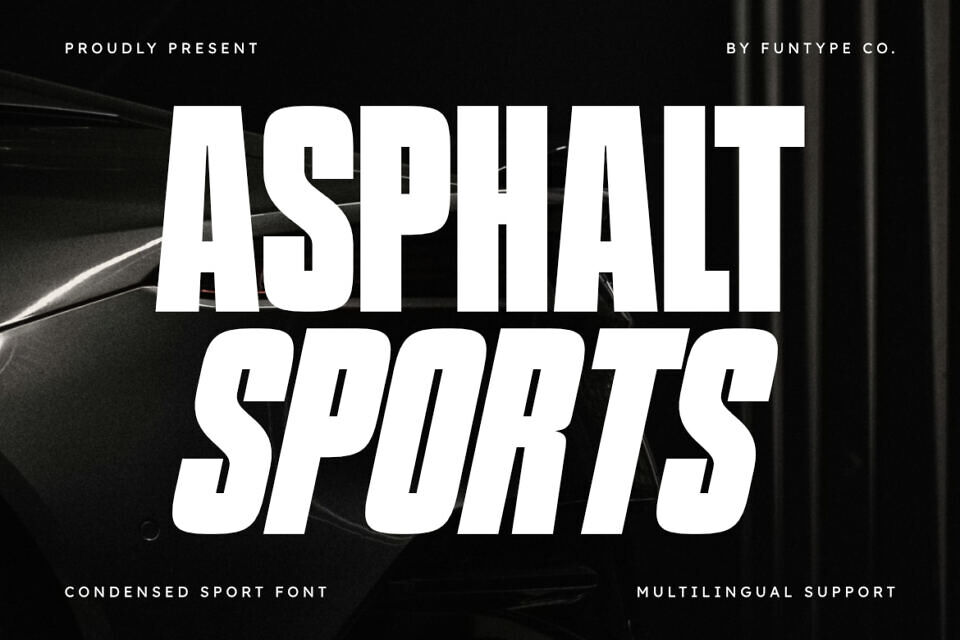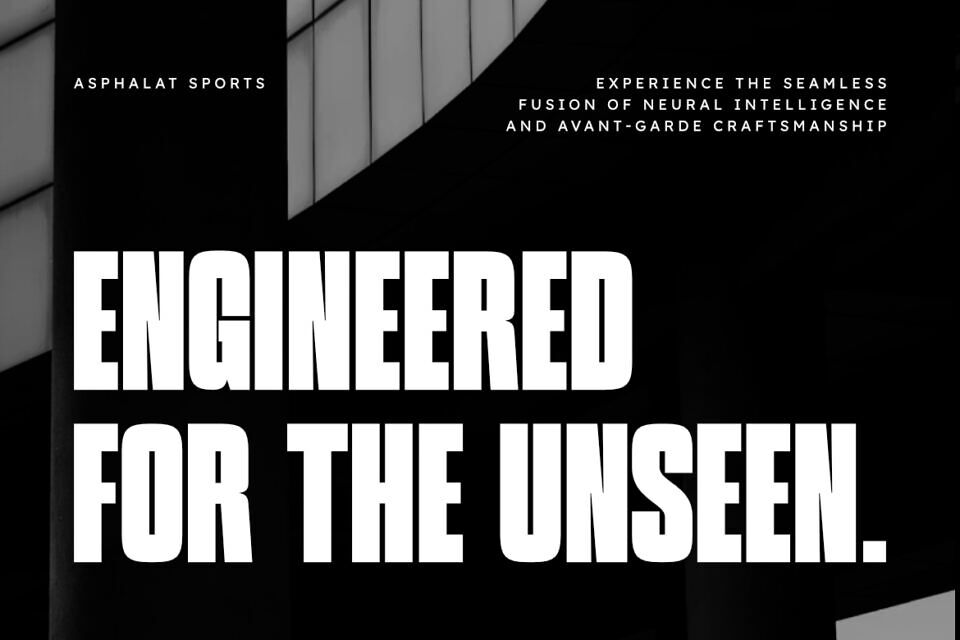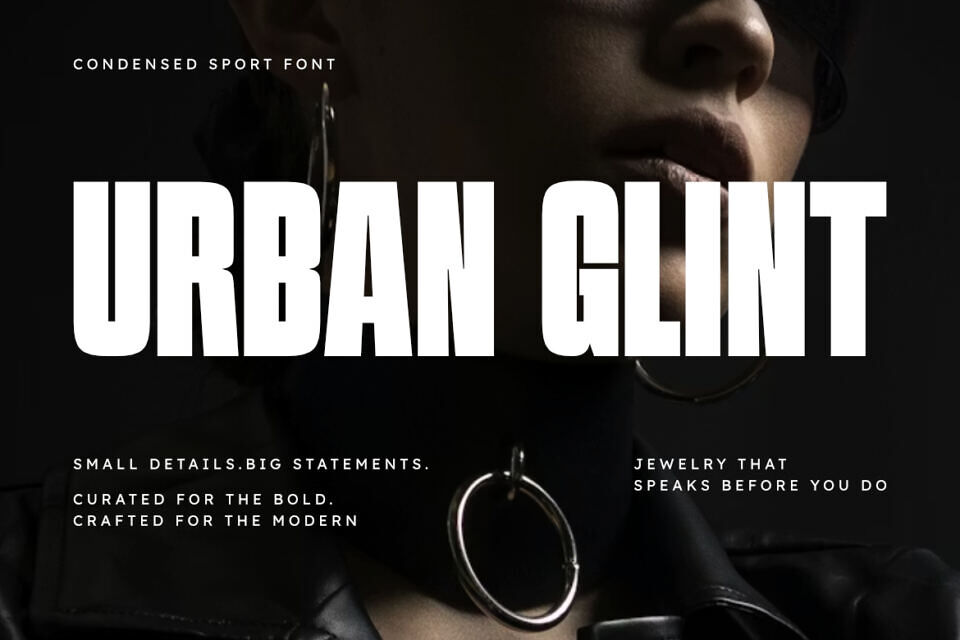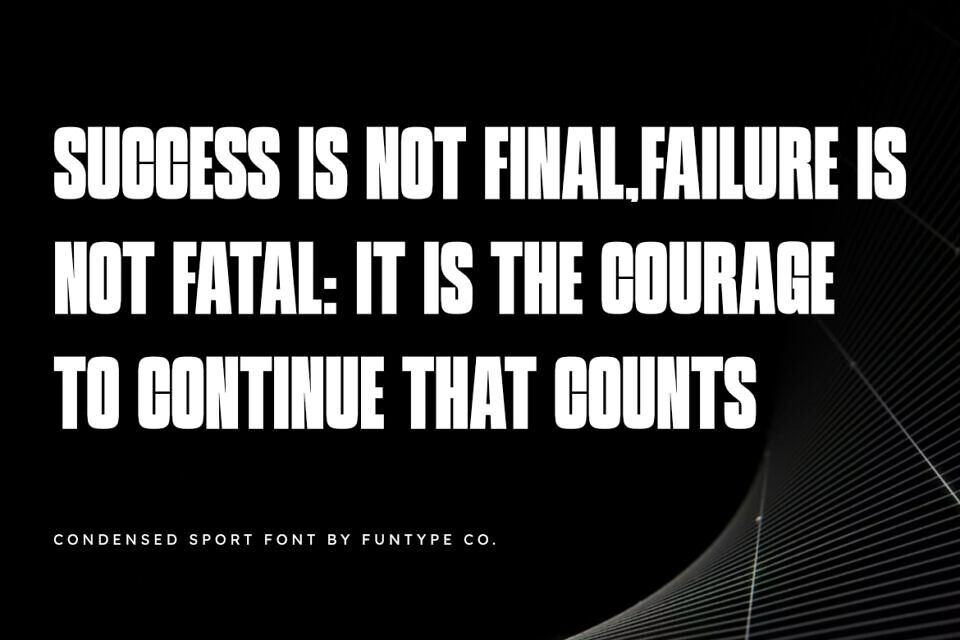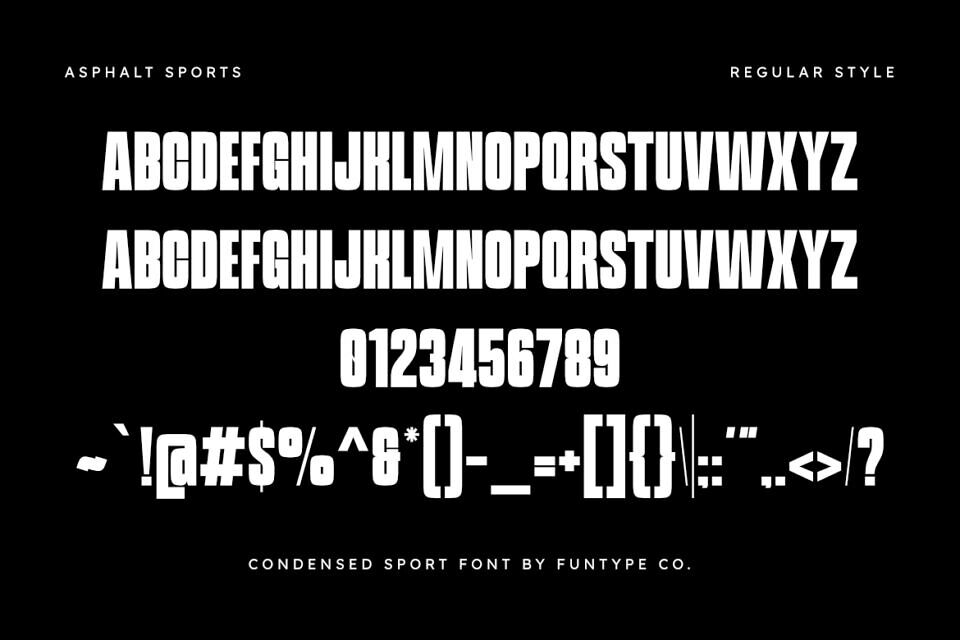
Asphalt Sports is a high-performance condensed sans serif font engineered for power, speed, and industrial strength. With its solid structure and aggressive geometric angles, this typeface captures the essence of modern motorsports and competitive athletics. It is the ultimate choice for designers who need a bold, authoritative look that maintains maximum impact in any layout.
This font family comes equipped with both Regular and Italic versions (free version, only Regular), giving you the versatility to create dynamic hierarchies in your designs. Featuring Multilingual Support, Asphalt Sports is ready for global branding projects, from high-octane automotive graphics to professional sports team identities.